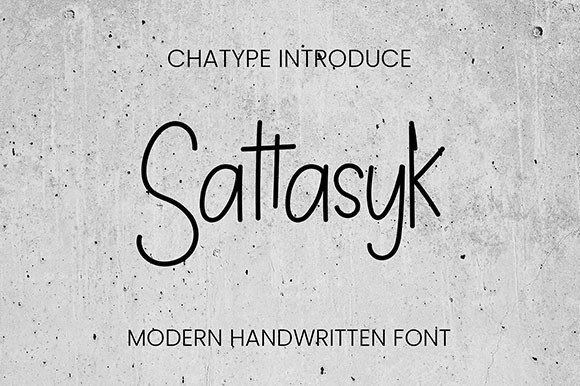
Introducing Sattasyk, the playful and charming script font that will elevate your designs to new heights! Immerse yourself in its enchanting world, where every curve and swash exudes creativity.
Picture this: your Instagram posts adorned with Sattasyk's whimsical charm, capturing your audience's hearts with each stroke. Or envision your website's headers, emblazoned with Sattasyk's elegance, inviting visitors into a realm of sophisticated style.
Whether you're crafting eye-catching logos for your brand, creating personalized invitations for special occasions, or designing stylish posters that turn heads, Sattasyk will be your steadfast companion, transforming your visions into captivating masterpieces.
This meticulously crafted font is a true chameleon, effortlessly adapting to a myriad of projects. From heartfelt quotes that touch the soul to chic blog headers that set the tone, Sattasyk's versatility knows no bounds.
Indulge in the joy of expression with Sattasyk, the font that will ignite your imagination and leave an indelible mark on your creative endeavors. Its adorable handwritten charm will add a touch of whimsy and warmth to every project, making it the perfect choice for adding a personal touch to your designs.
So, why settle for ordinary when you can embrace the extraordinary? Embrace Sattasyk today and unlock the power of a font that will make your designs sing with joy and captivate the hearts of all who lay eyes upon them.